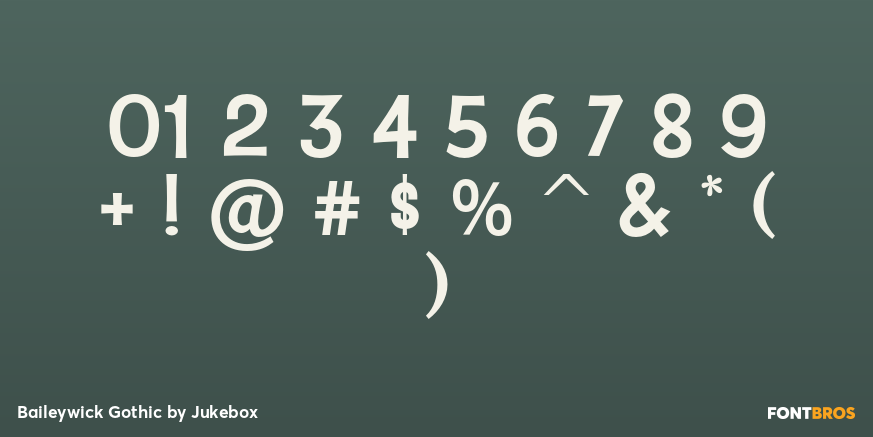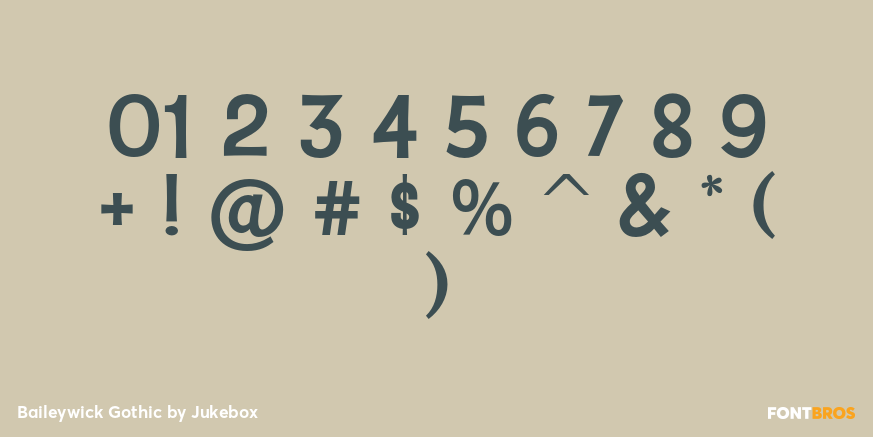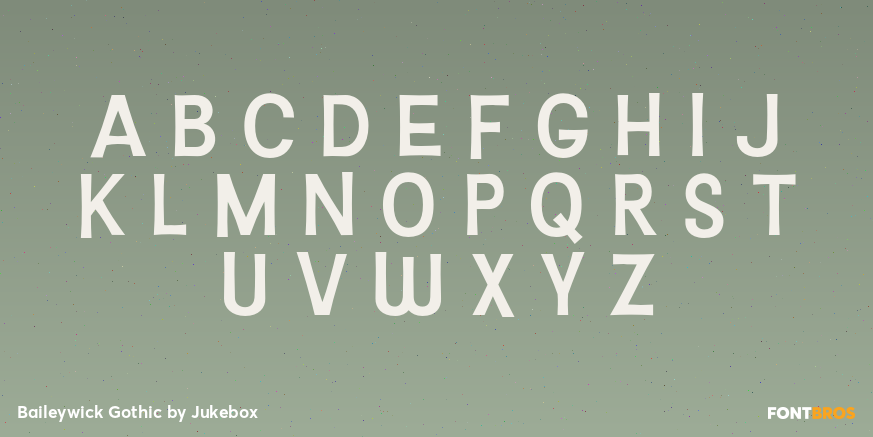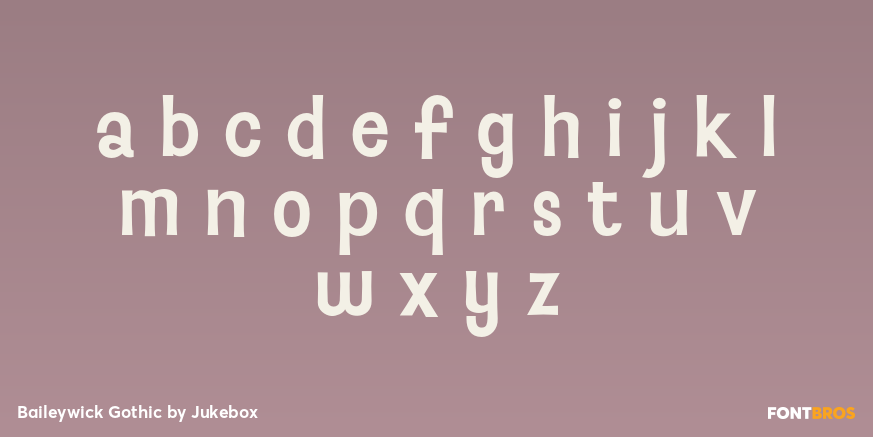
Baileywick Gothic
Font Family by Jukebox
Baileywick Gothic is the sans-serif member of the Baileywick family of fonts. Although a bit more serious in tone than its two siblings, this font has an upbeat exuberance nonetheless. The slightly modulated baseline and large x-height make it easy on the eyes.